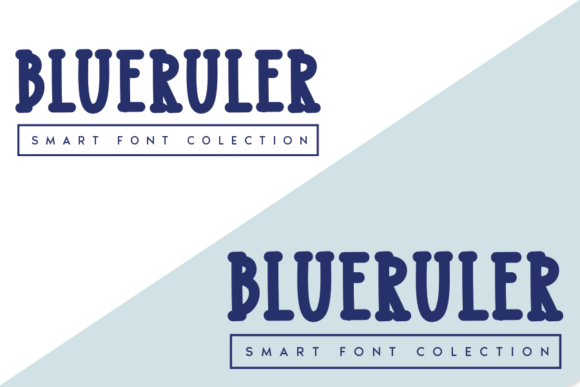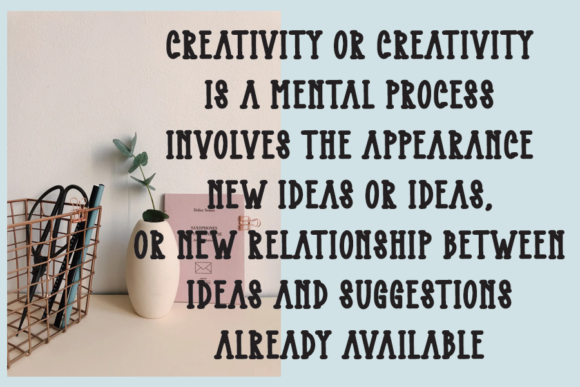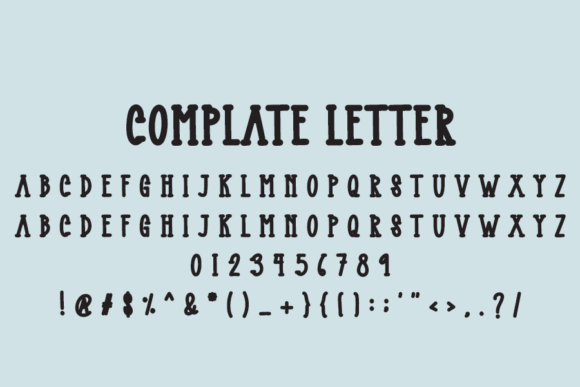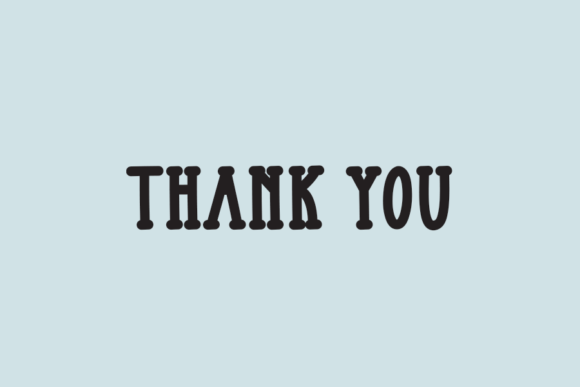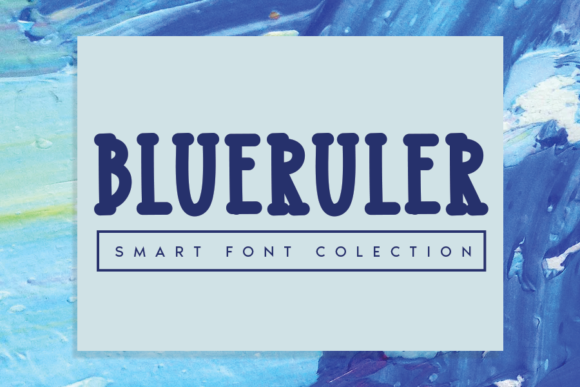
Introducing Blueruler Font: The Ultimate Display Font for Creative Projects
Are you tired of using the same old fonts for your creative projects? Look no further than Blueruler Font, a chunky lettered, authentic display font that’s sure to make your designs stand out. With its friendly feel and incredible versatility, Blueruler is the perfect addition to any designer’s toolkit.
What is Blueruler Font?
Blueruler Font is a unique and eye-catching display font that’s designed to make a statement. Its chunky letters and authentic feel give it a distinctive look that’s both modern and nostalgic. Whether you’re working on a branding project, a poster, or a social media graphic, Blueruler is the perfect choice for adding a touch of personality and flair.
Key Features of Blueruler Font
- Chunky Lettering: Blueruler’s bold, chunky letters are perfect for creating eye-catching headlines and titles.
- Authentic Feel: The font’s authentic feel gives it a unique and distinctive look that’s both modern and nostalgic.
- Versatility: Blueruler is incredibly versatile, making it suitable for a wide range of contexts and design projects.
- Easy to Read: Despite its bold and chunky design, Blueruler is surprisingly easy to read, even at smaller sizes.
Use Cases for Blueruler Font
Blueruler Font is incredibly versatile, making it suitable for a wide range of design projects and contexts. Here are just a few examples of how you can use Blueruler:
- Branding and Logos: Use Blueruler to create bold and eye-catching logos and branding materials.
- Posters and Flyers: Add a touch of personality to your posters and flyers with Blueruler’s unique and eye-catching design.
- Social Media Graphics: Use Blueruler to create eye-catching social media graphics that stand out from the crowd.
- Packaging Design: Add a touch of personality to your packaging design with Blueruler’s bold and chunky letters.
Tips for Using Blueruler Font
Here are a few tips for getting the most out of Blueruler Font:
- Experiment with Colors: Blueruler looks great in a range of colors, so don’t be afraid to experiment and find the perfect hue for your design.
- Play with Size: Blueruler’s bold and chunky design makes it perfect for headlines and titles, but it can also be used at smaller sizes for added impact.
- Combine with Other Fonts: Blueruler pairs well with a range of other fonts, so don’t be afraid to experiment and find the perfect combination for your design.
Blueruler Font is a unique and eye-catching display font that’s perfect for designers and crafters looking to add a touch of personality to their creative projects. With its chunky letters, authentic feel, and incredible versatility, Blueruler is sure to become a staple in any designer’s toolkit. So why wait? Download Blueruler Font today and start creating stunning designs that stand out from the crowd!